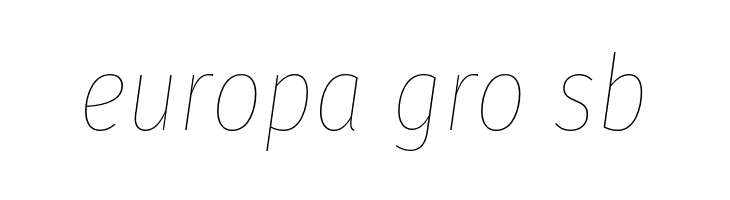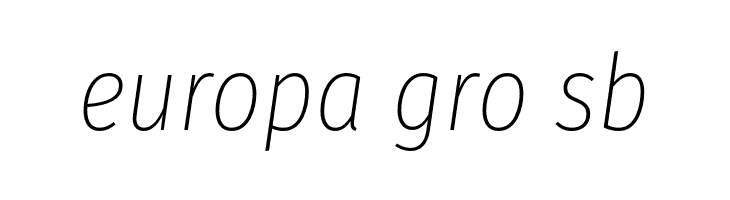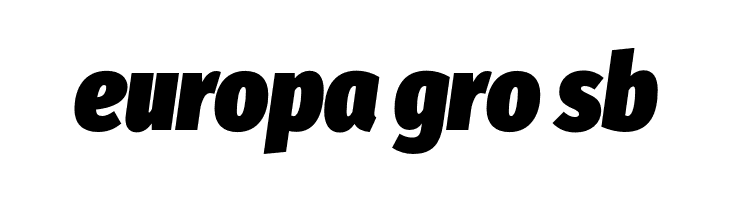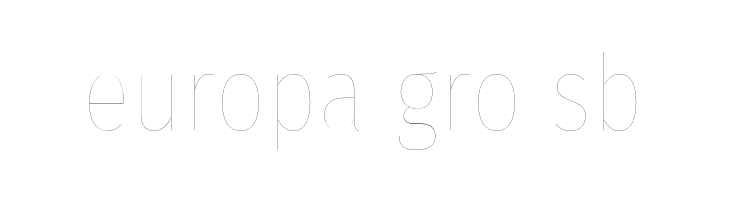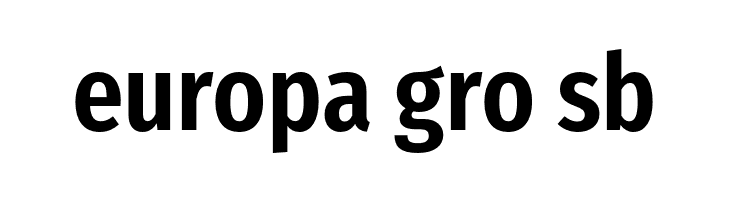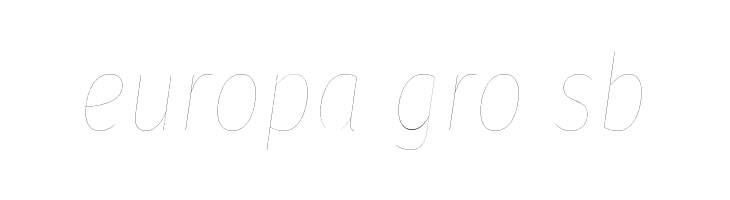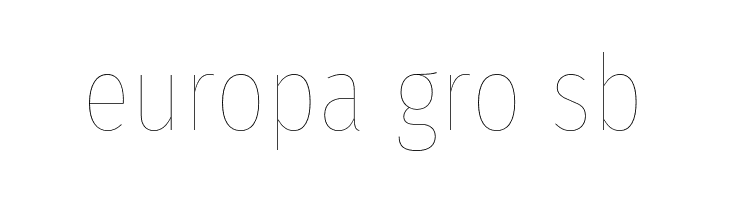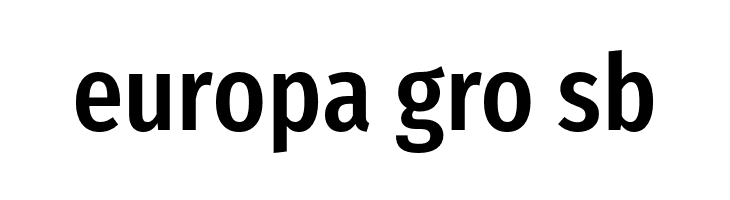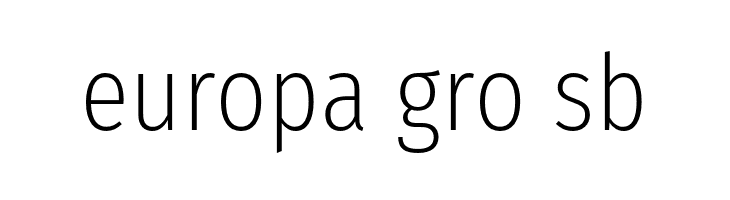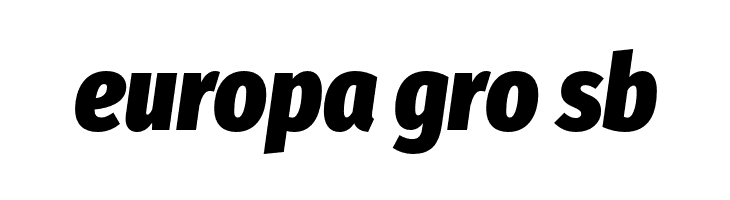
A sleek, modern, and condensed italic font with a light weight and tight spacing.
A sleek, ultra-light, condensed italic font with a modern and elegant style.
A bold, condensed, ultra-italic font with strong visual impact.
A modern, condensed sans-serif font with uniform stroke width and geometric influence.
A modern, condensed sans-serif font with semi-bold weight, ideal for clear and space-efficient designs.
A sleek, modern, and condensed italic font with consistent stroke thickness.
A modern, condensed sans-serif font with a sleek and minimalistic design.
A modern, condensed sans-serif font with medium weight and excellent readability.
A clean, modern, and condensed sans-serif typeface with an extra light weight.
A bold, condensed, and italic sans-serif font with a modern flair.